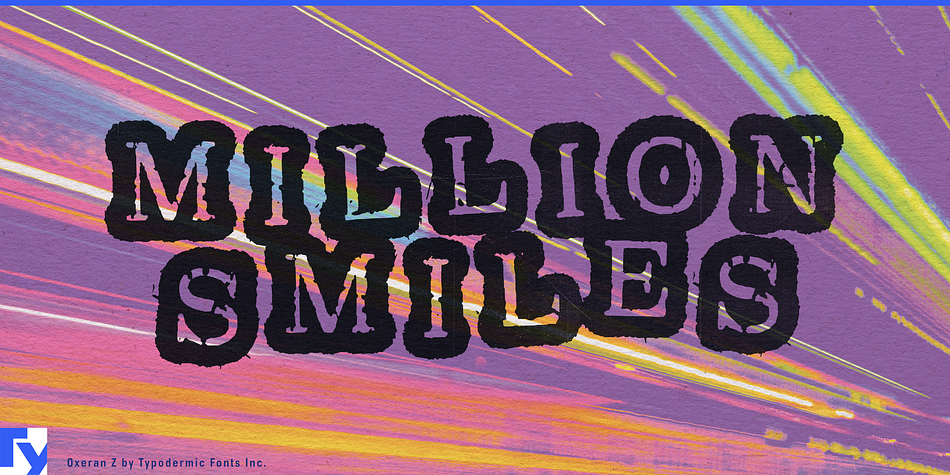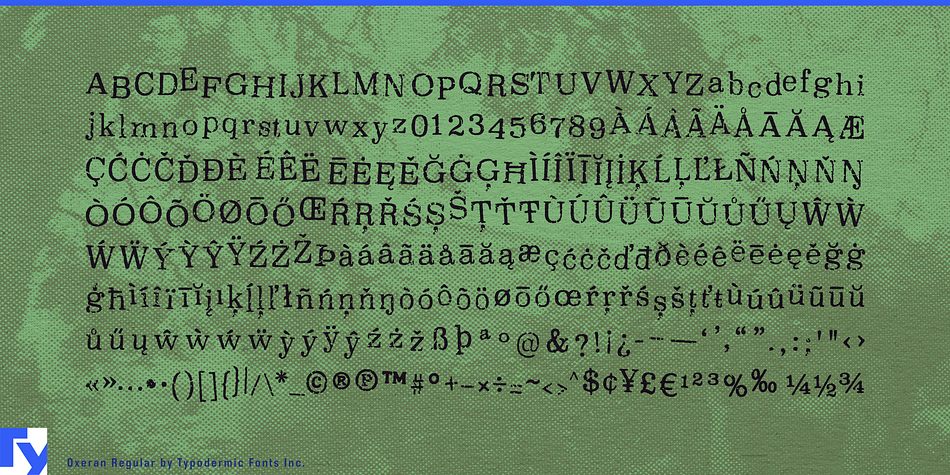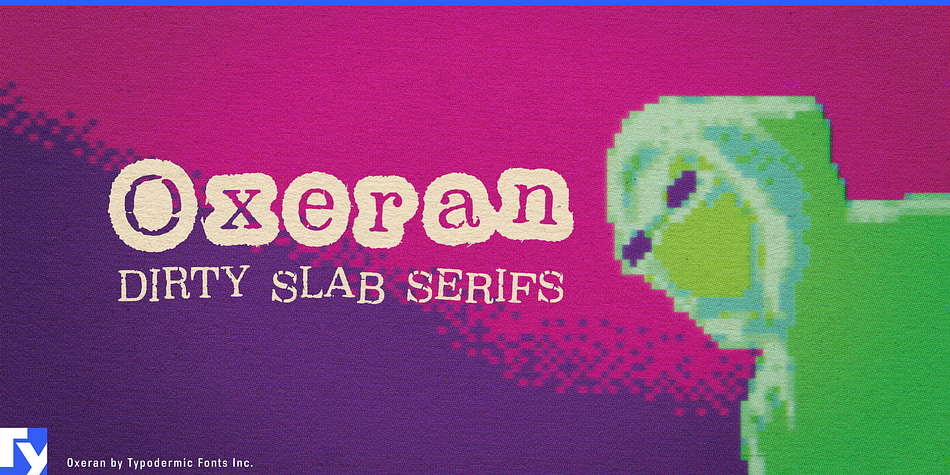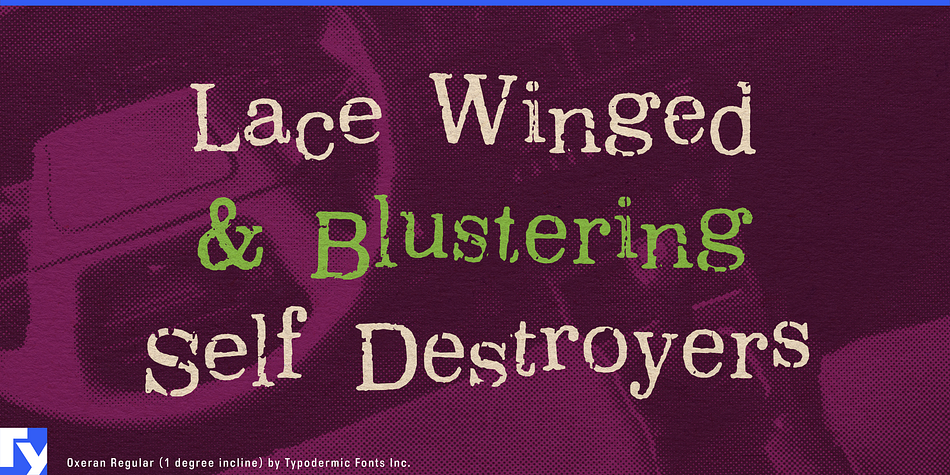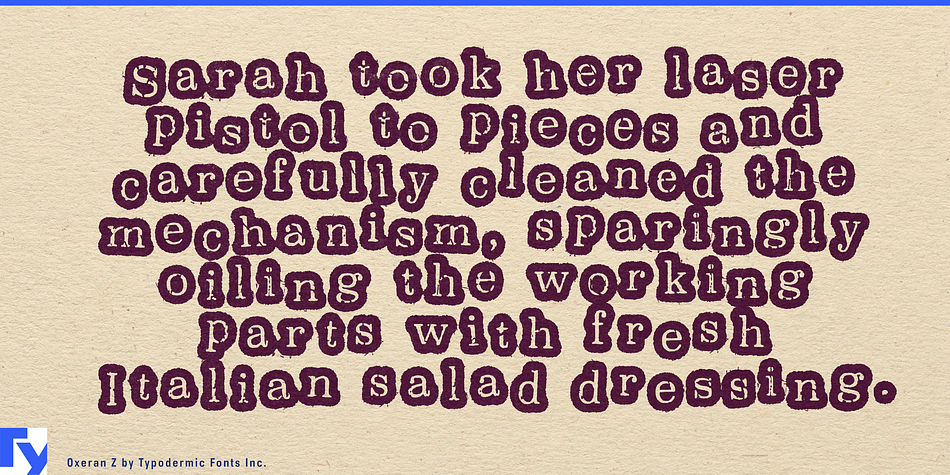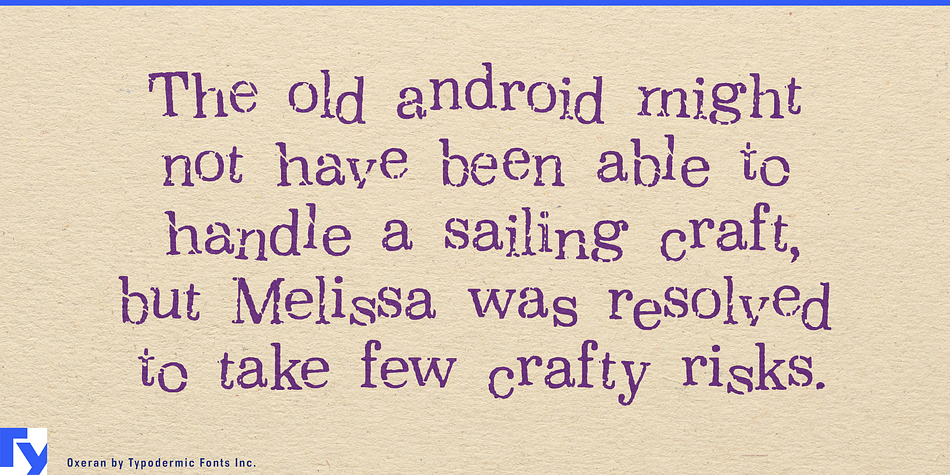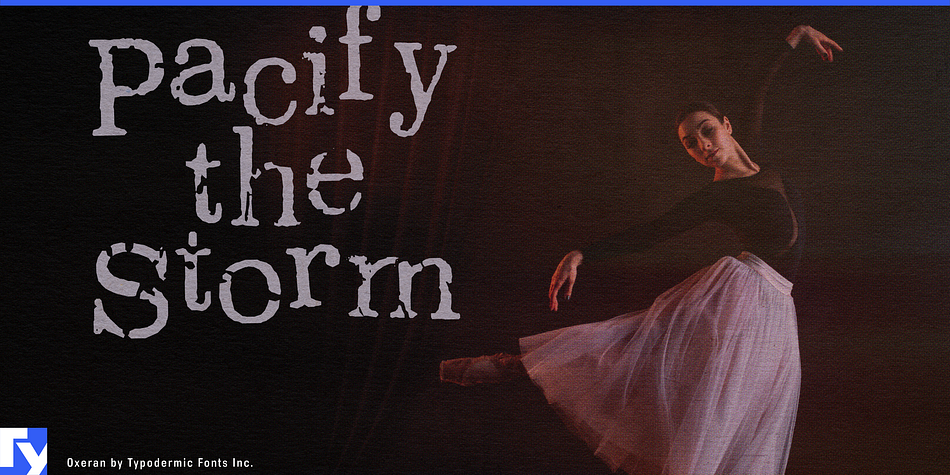
Oxeran is a grunge font family. This typeface has two styles and was published by Typodermic Fonts Inc.
Oxeran & Oxeran Z (outlined) are a pair of dirty fonts. In OpenType savvy applications, letter pair autoligs help break up the monotony of obviously repeating letters.